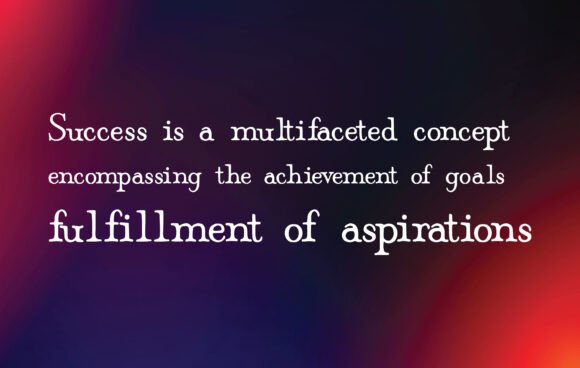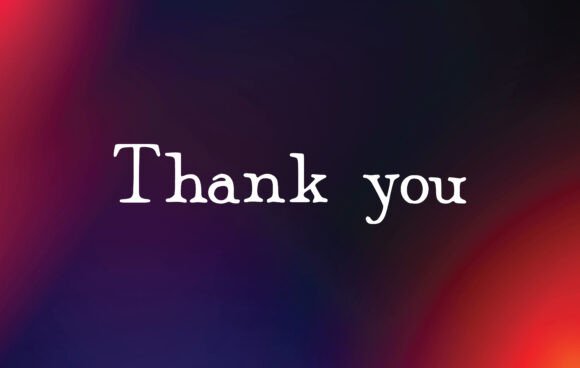
The Designer’s Delight: A Deep Dive into Gomez Font
I’ll never forget the time I was working on a branding project for a trendy coffee shop. My client wanted a logo that was both elegant and playful, but I was struggling to find the perfect font. That was until I stumbled upon Gomez Font. It was love at first sight! 😍 With its beautiful handwritten curves and versatility, Gomez Font took my design to the next level. In this article, I’ll share my experience with this lovely font, its features, and how to make the most of it in your designs.
An Honest Review of Gomez Font
- ✨ Beautiful handwritten curves and fluid strokes
- ✅ Highly versatile and adaptable to various design projects
- 🎨 Perfect for creating eye-catching logos, branding, and quotes
- 💻 Works seamlessly with OpenType features and glyphs
While Gomez Font is an amazing font, there are a few things to keep in mind:
- 🤔 May not be suitable for very small font sizes (below 10pt)
- ⚠️ Some characters may not work well in all applications (e.g., ligatures in Microsoft Word)
- Experiment with OpenType features, such as ligatures and stylistic alternates, to add personality to your design.
- Keep in mind that some OpenType features may not work seamlessly in Word.
The Story Behind Gomez Font
Gomez Font was designed by a talented type designer who wanted to create a beautiful, handwritten font that would inspire creativity. With its fluid strokes and elegant curves, Gomez Font is perfect for designers, crafters, and creative hobbyists looking to add a personal touch to their projects.
| Font Name | Gomez Font |
| Author | moonlight craft |
Q: What is Gomez Font best used for?
A: Gomez Font is perfect for creating eye-catching logos, branding, and quotes. Its versatility makes it suitable for a wide range of design projects.
Q: Is Gomez Font suitable for body text?
A: While Gomez Font is beautiful, it’s best suited for headings and titles. For body text, a clearer font may be more readable.